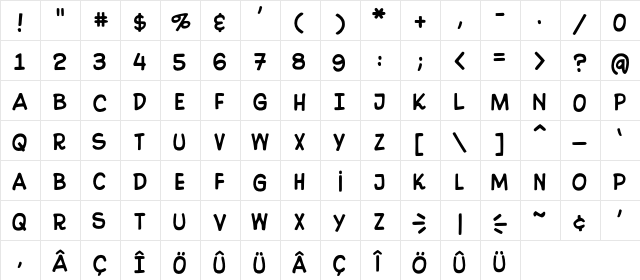
25 Cent Comics Regular
Design Context for 25 Cent Comics Typeface
25 Cent Comics has an approachable, lighthearted character — its loose, expressive forms are well-suited to children's content, casual branding, and fun-first design.
Well-suited to food and beverage brands with personality, educational materials, and fun-forward identities.
Font Pairing: Pairs well with a rounded or humanist sans for body copy, maintaining the friendly tone without relying on 25 Cent Comics to carry extended reading.
Pro Tip: Use 25 Cent Comics at larger display sizes where its expressive character can land. Pair with a clean, simple sans for body copy to maintain readability.